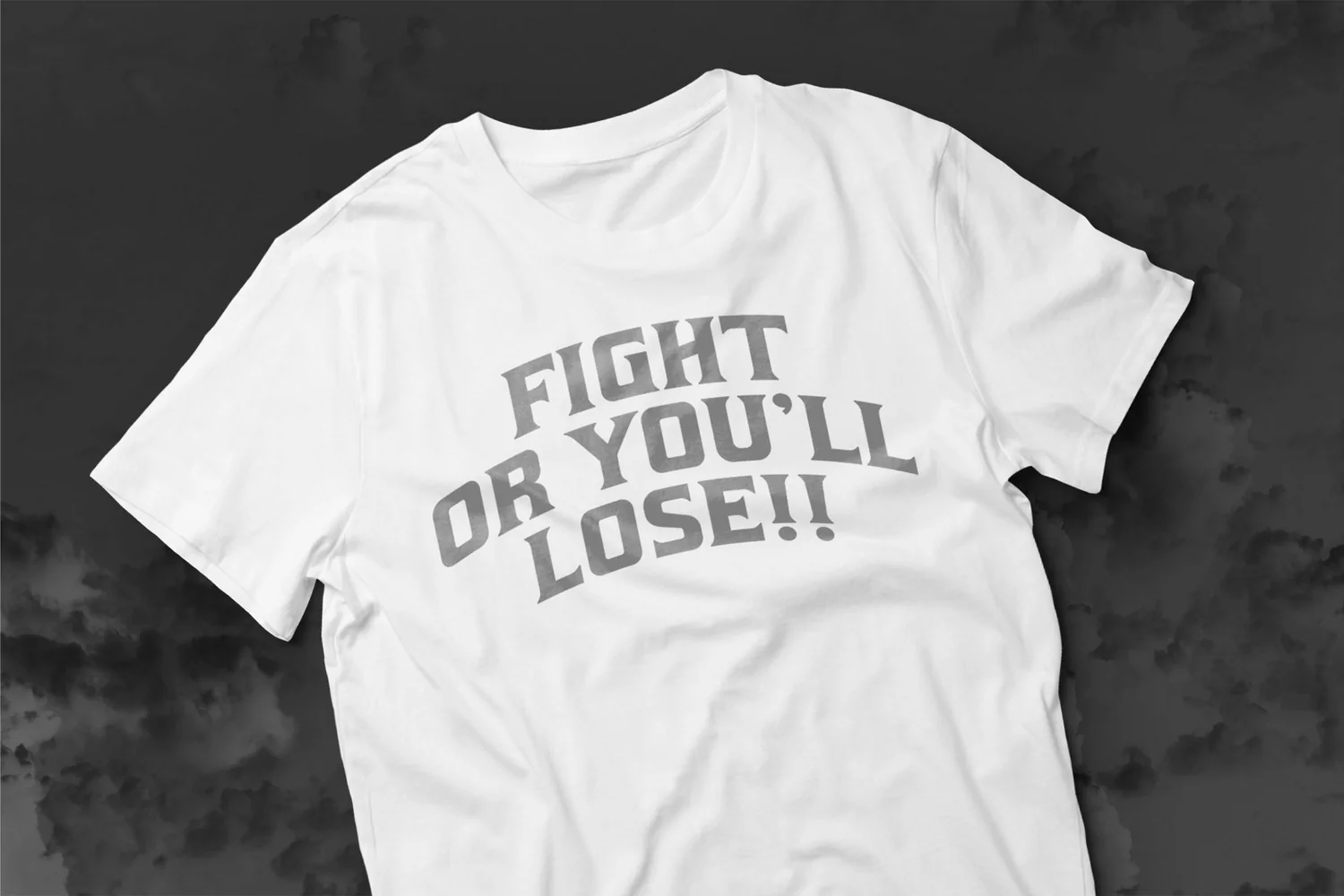
Fultone is a new stencil display typeface. It has strong characteristics, sporty, simple, luxurious, and classy so it is very suitable for displays, logos, logotypes, branding, titles, short quotes, and so on.